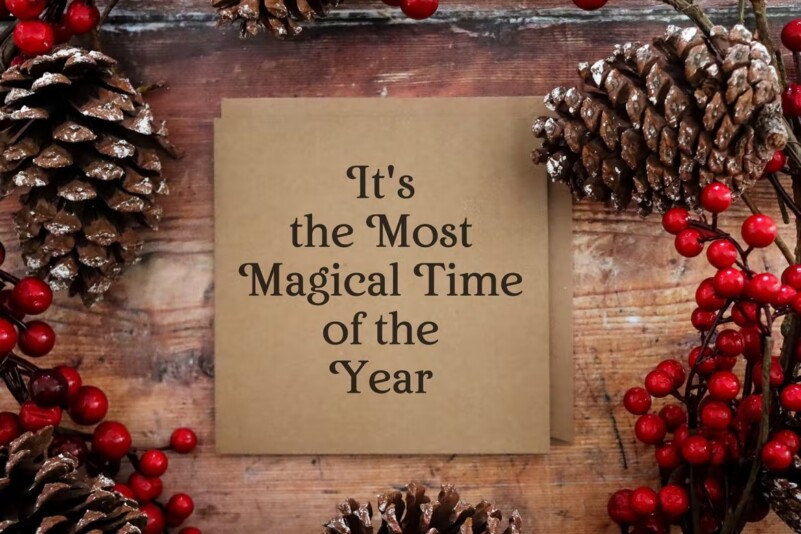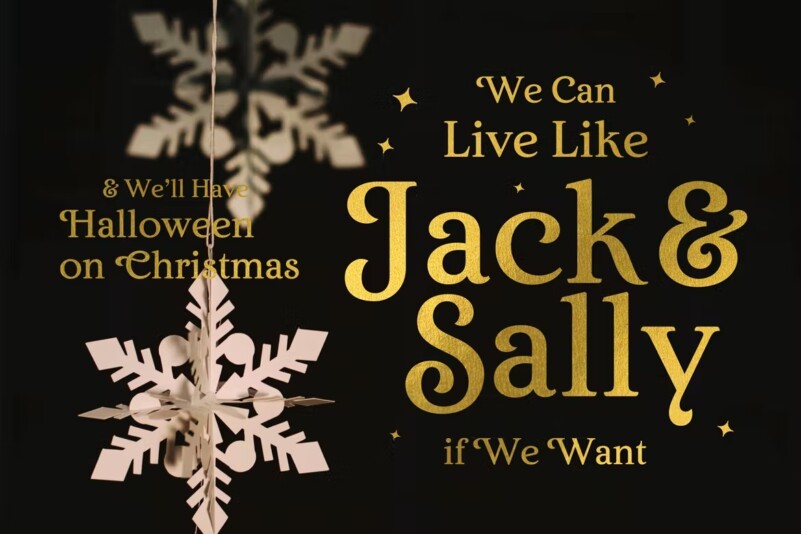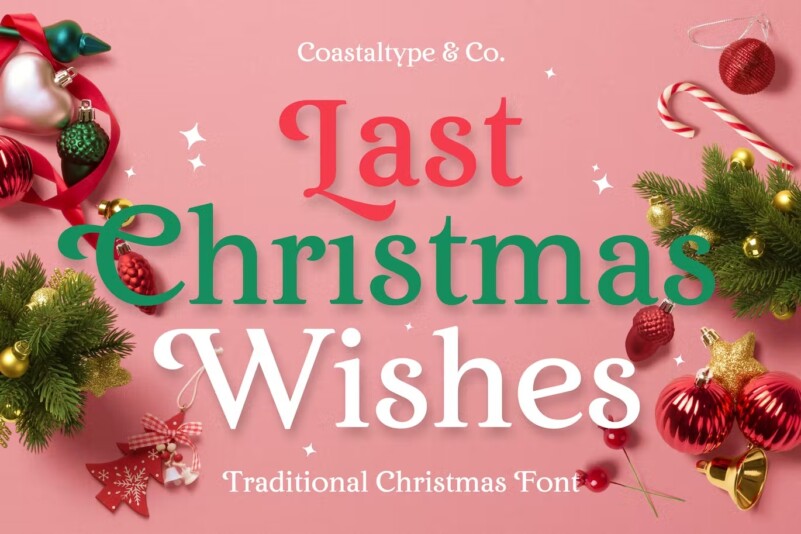
Last Christmas Wishes Font
Last Christmas Wishes is a warm, retro typeface that exudes a sophisticated and elegant Christmas vibe. They are easy to use and perfect for expressing your thoughts, posting quotes and simple daily updates on social media. It will make Christmas time more chic and glamorous.